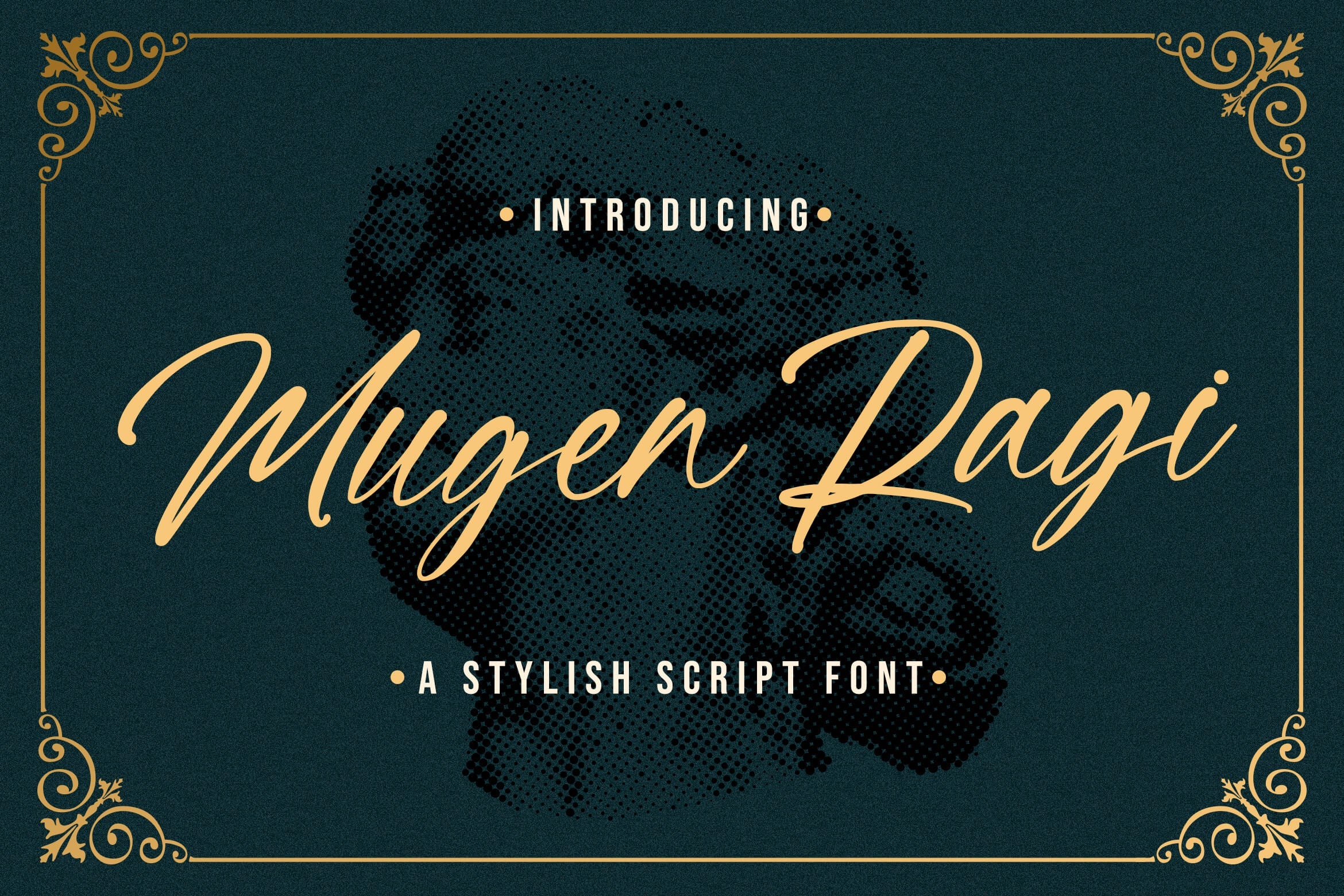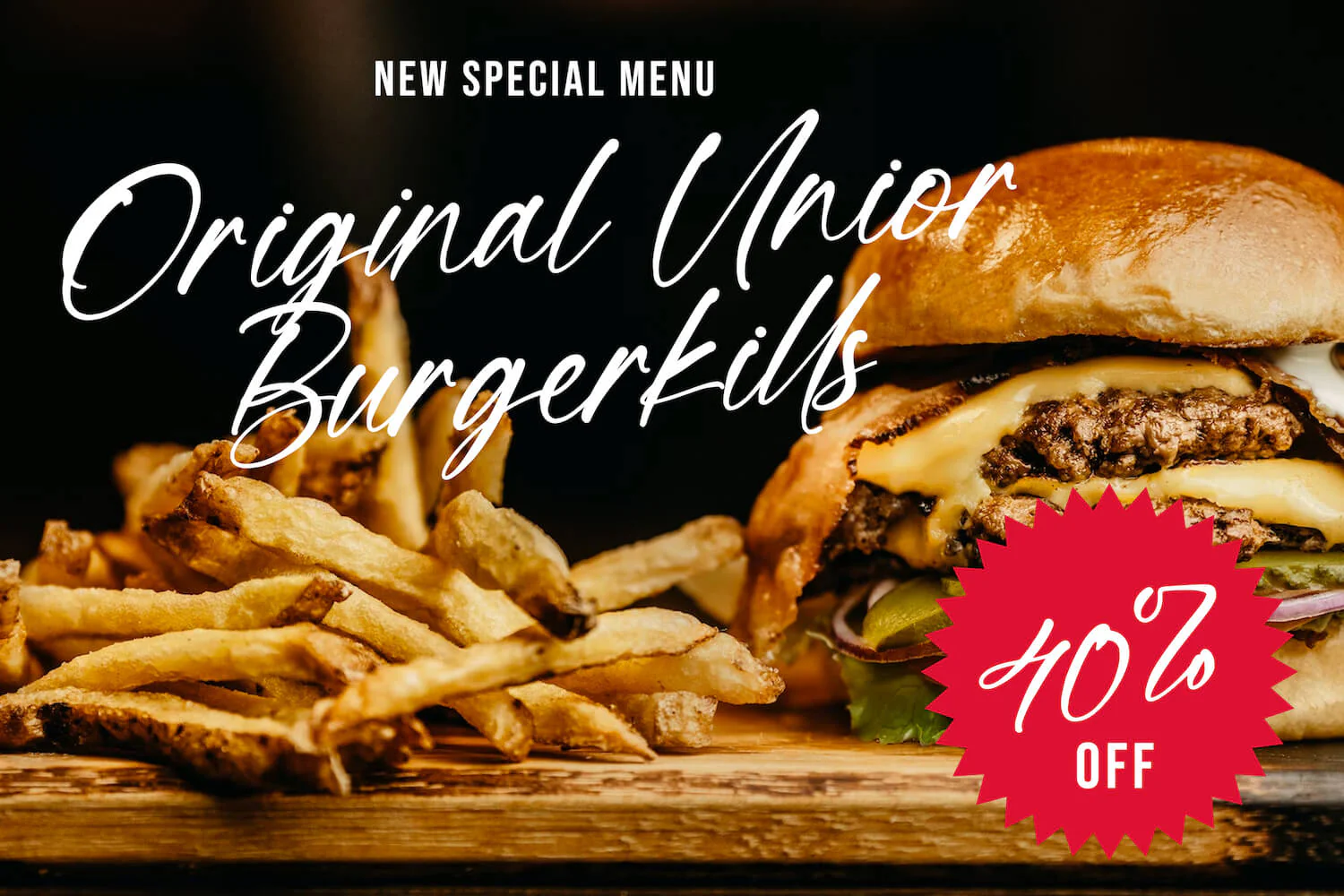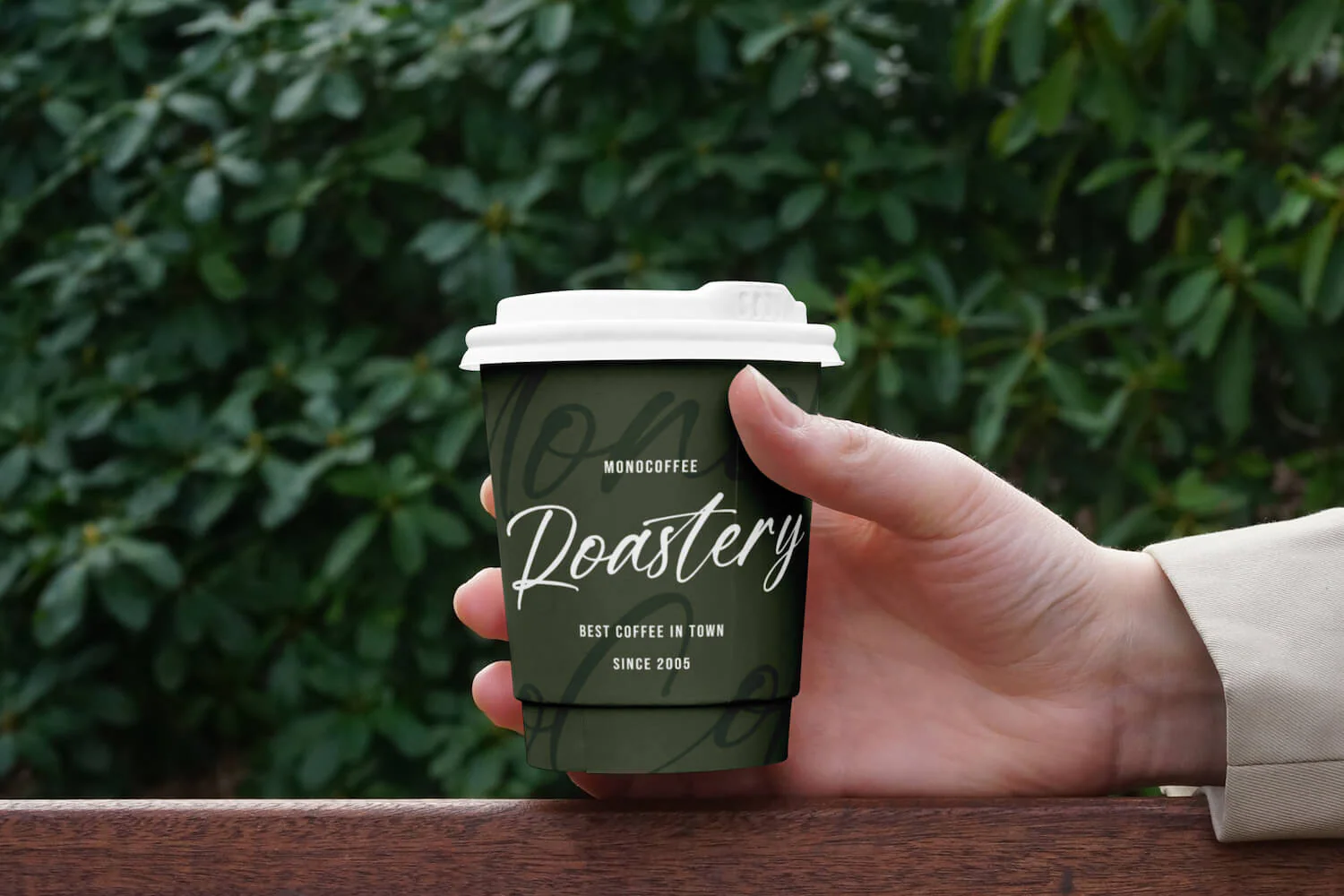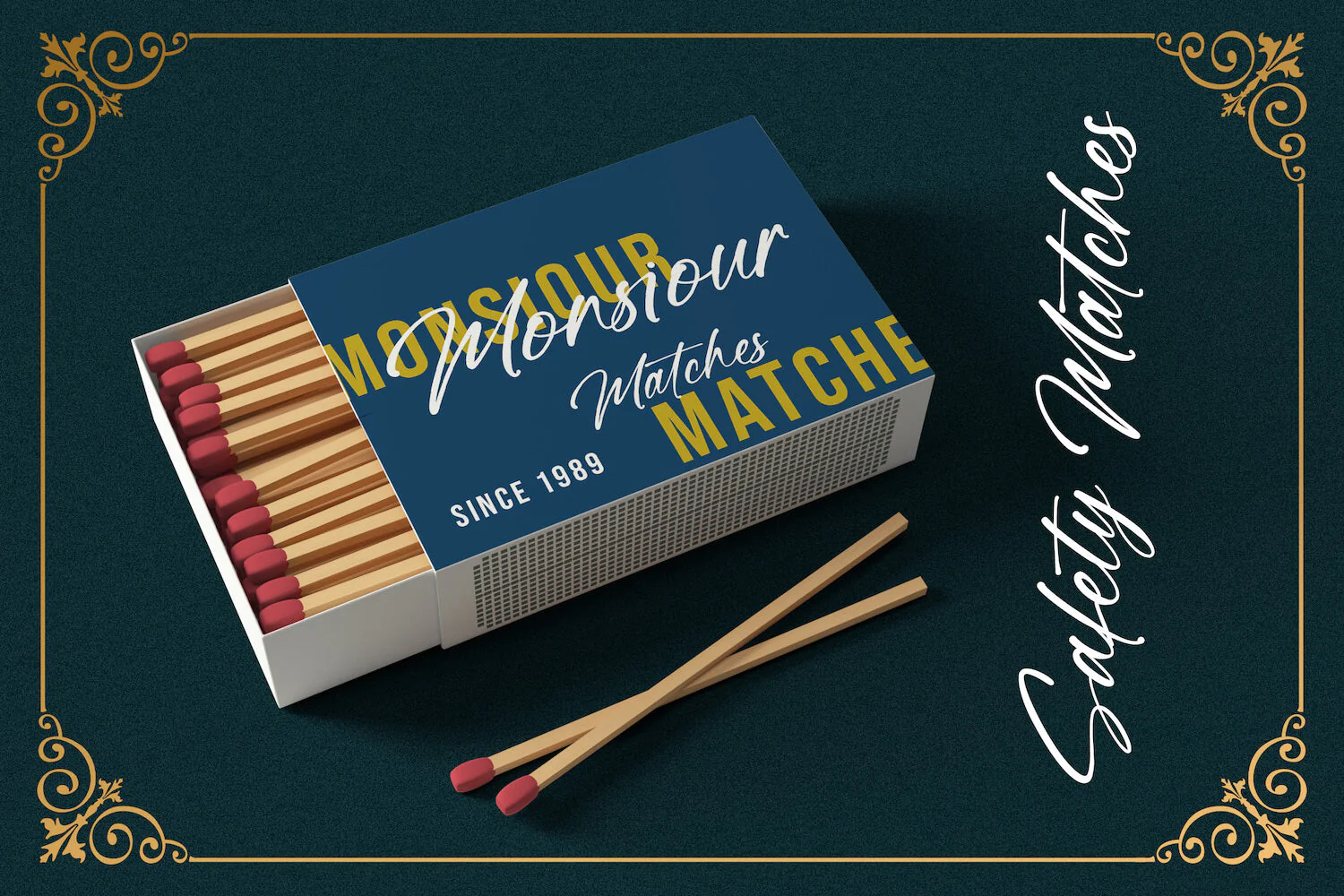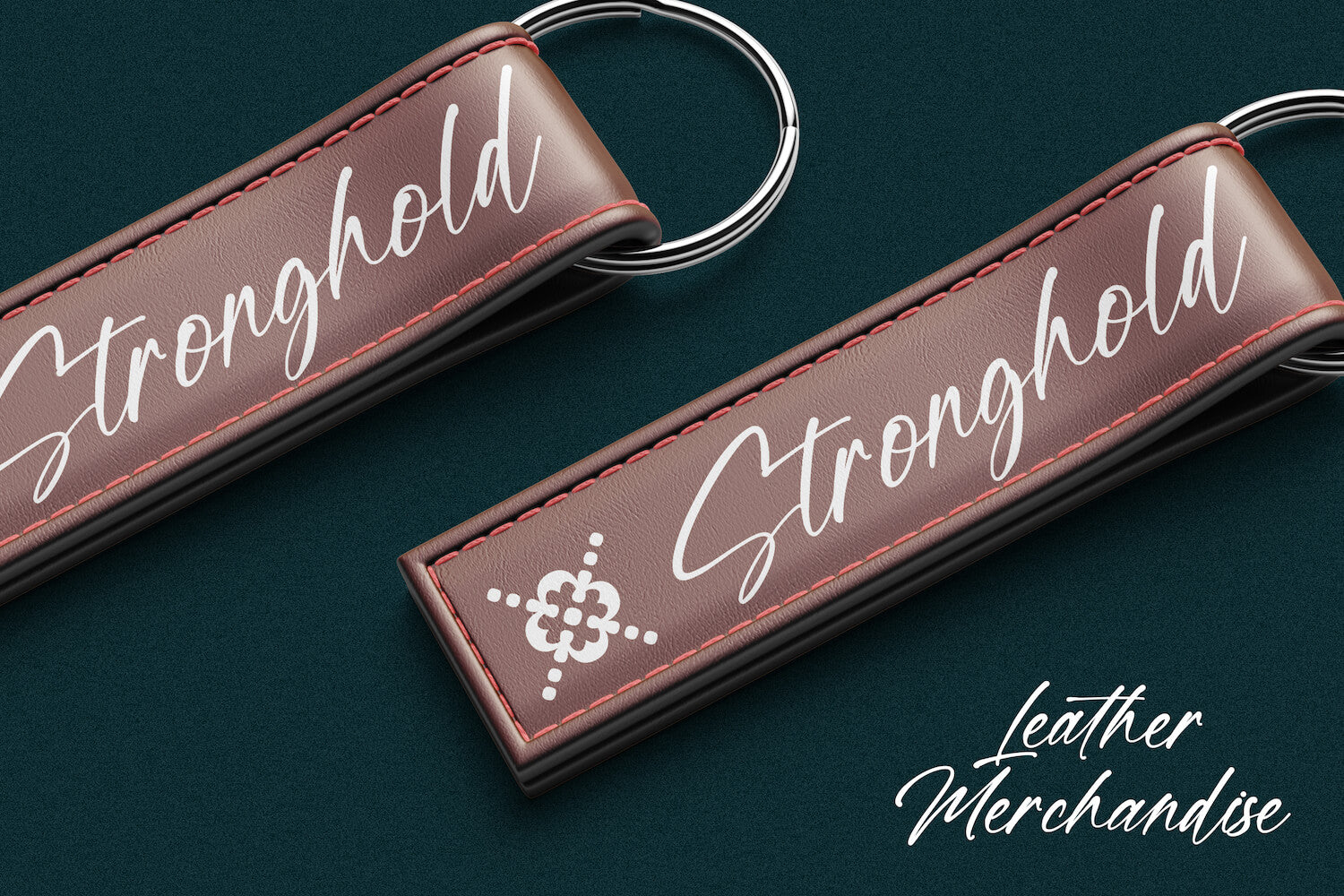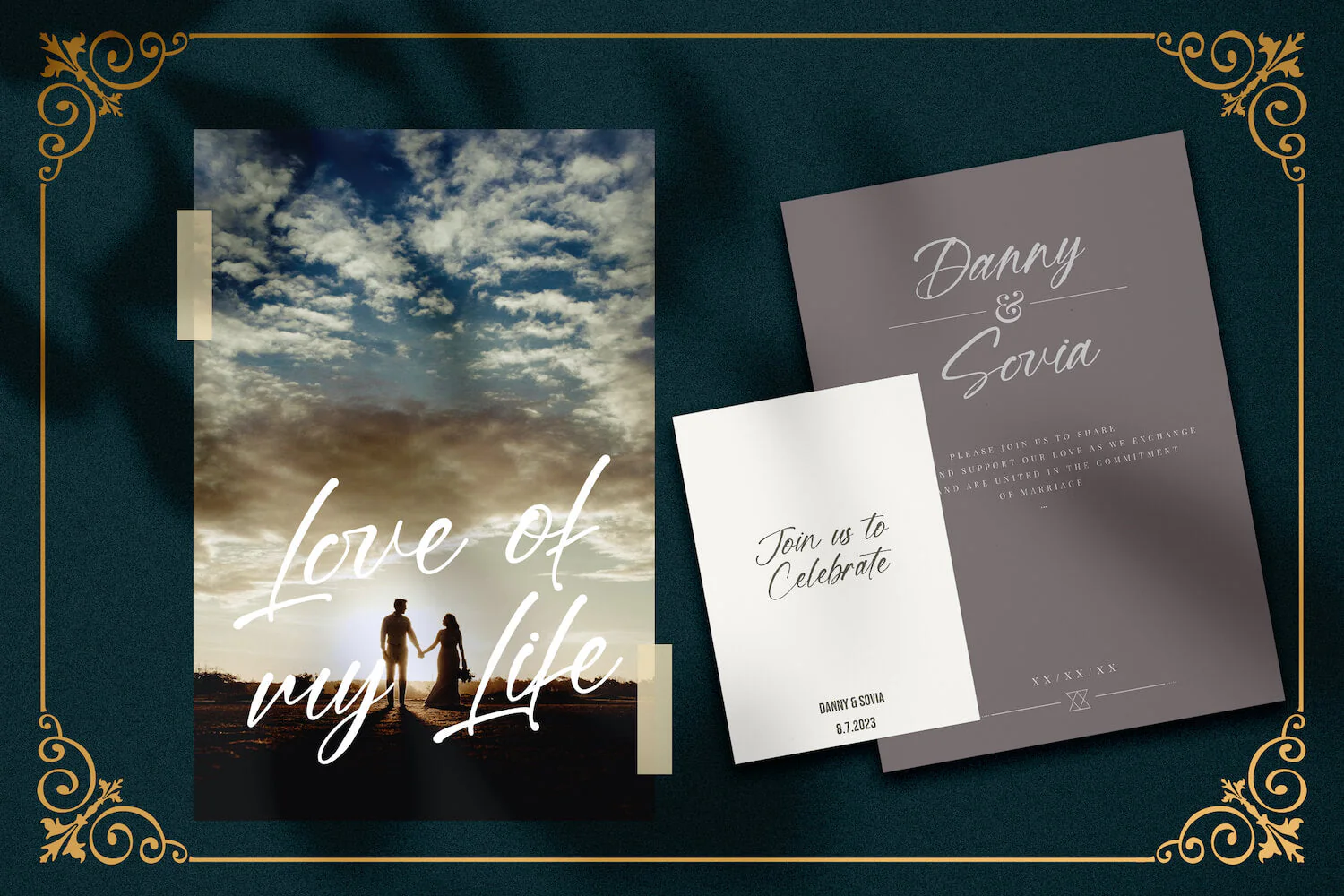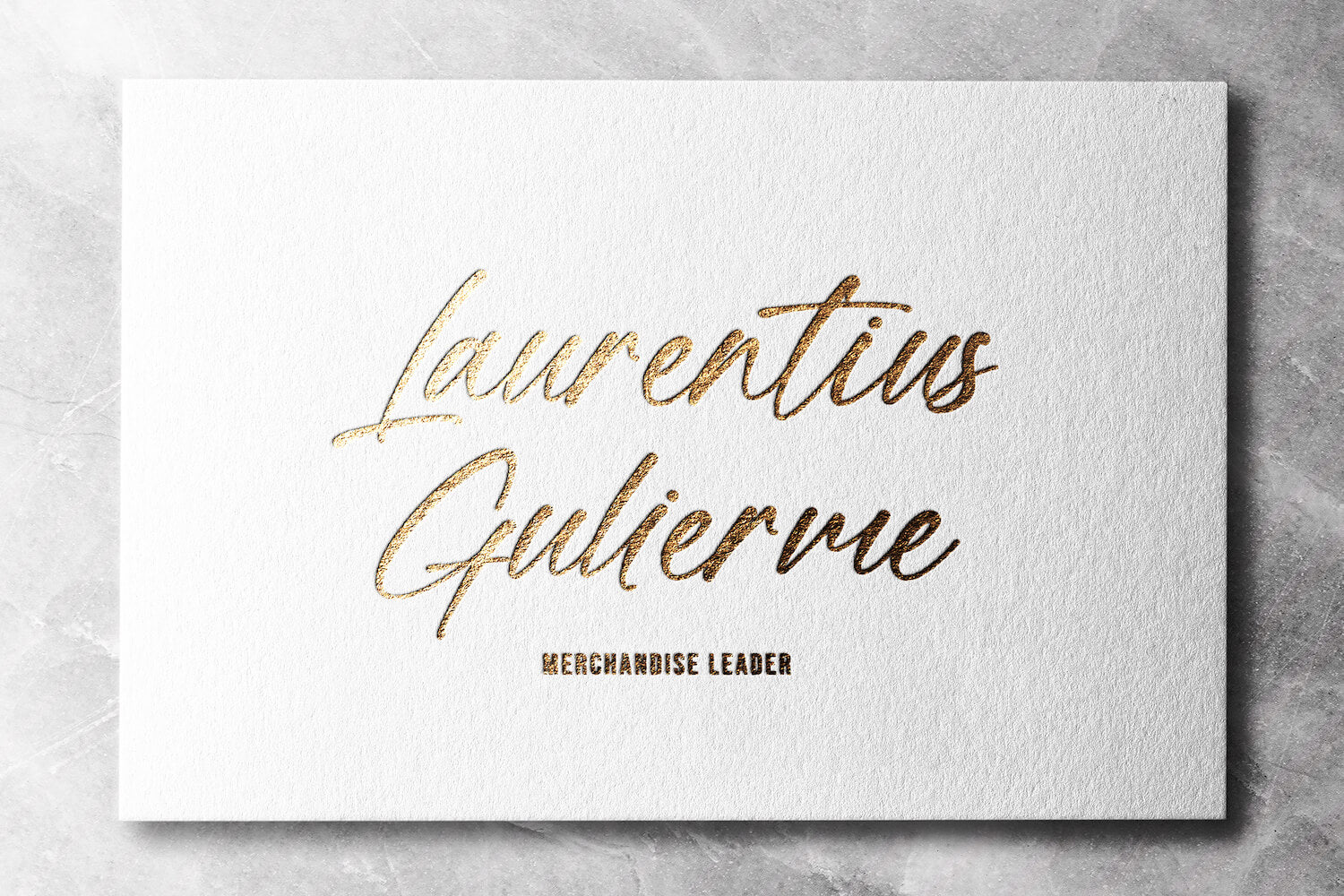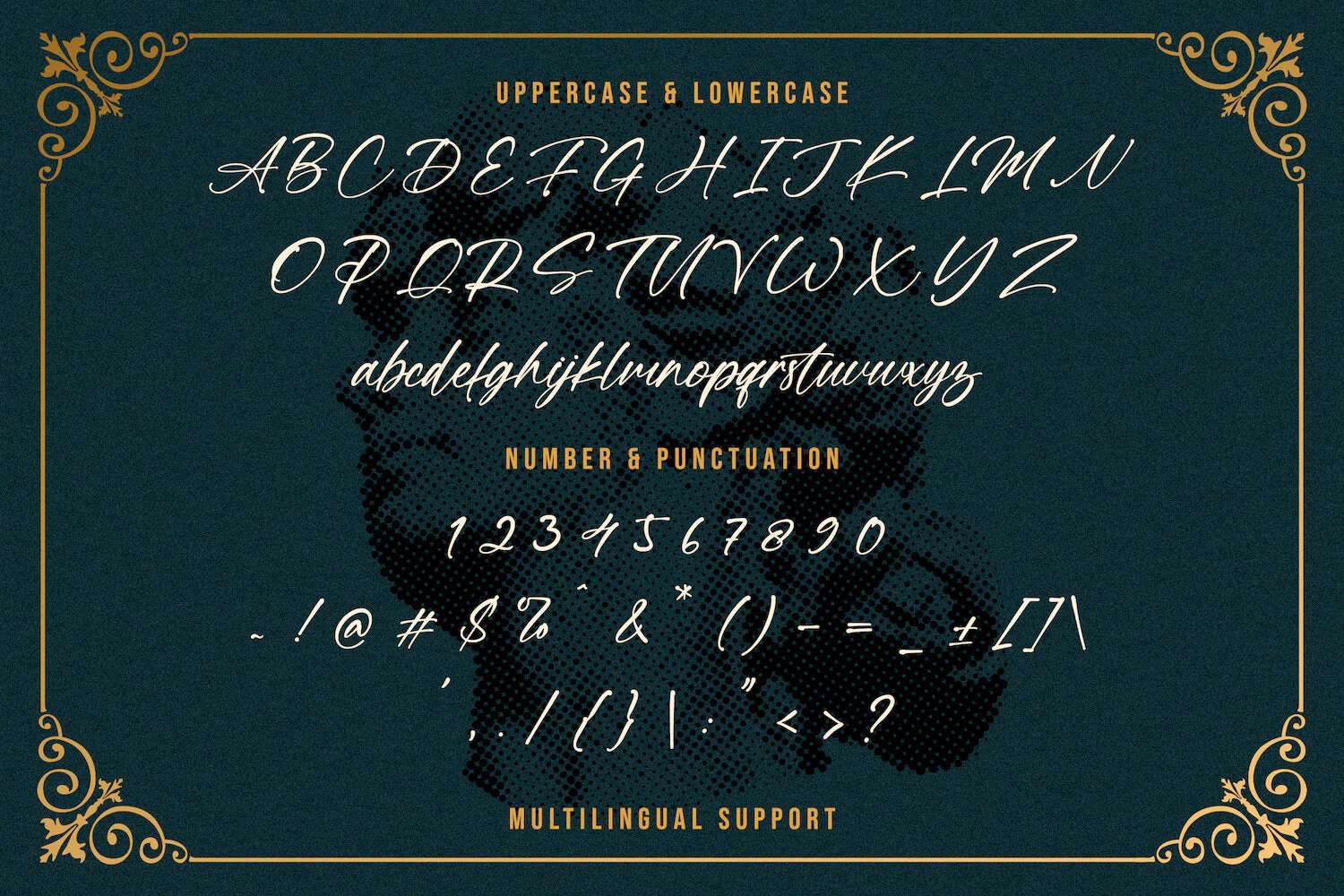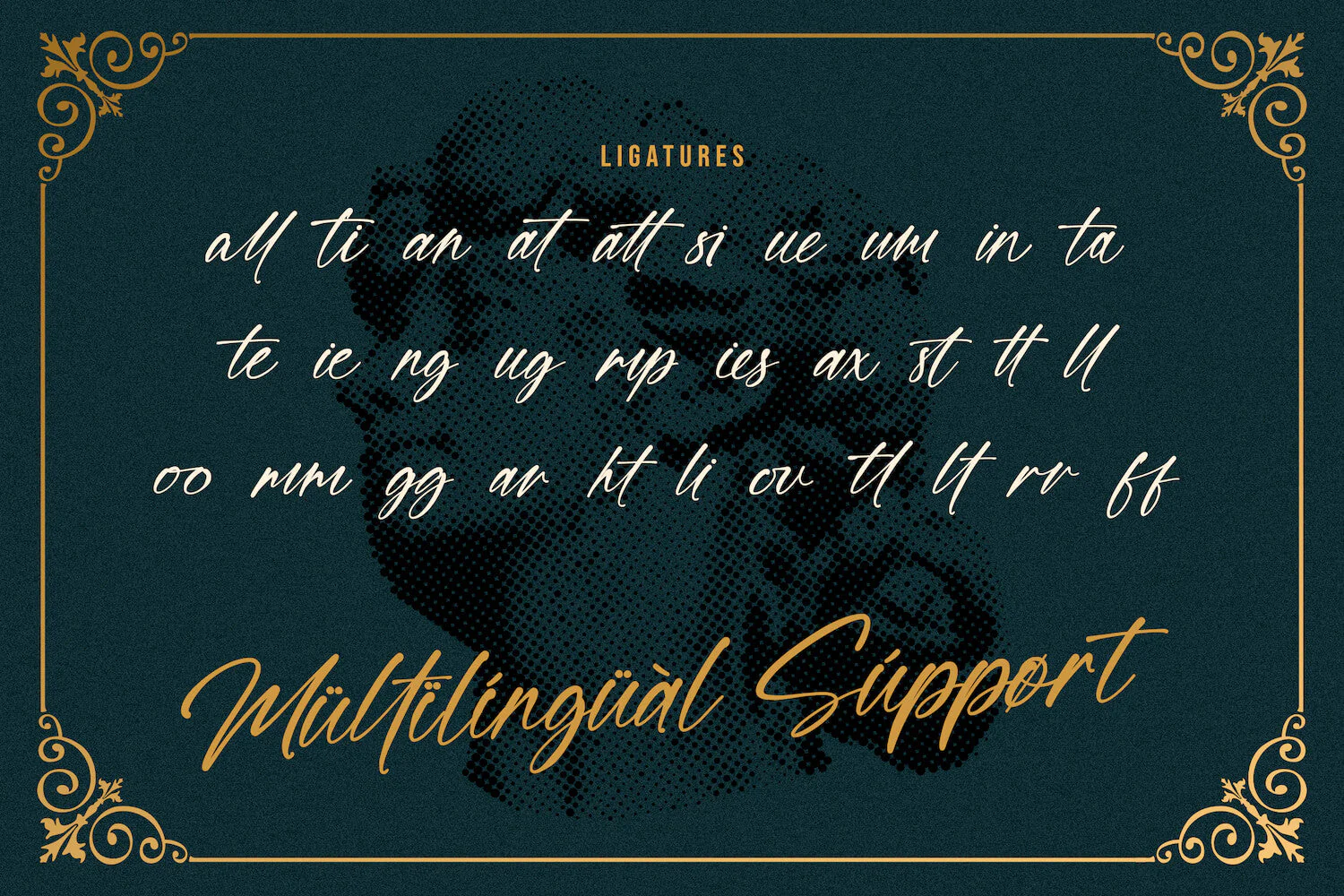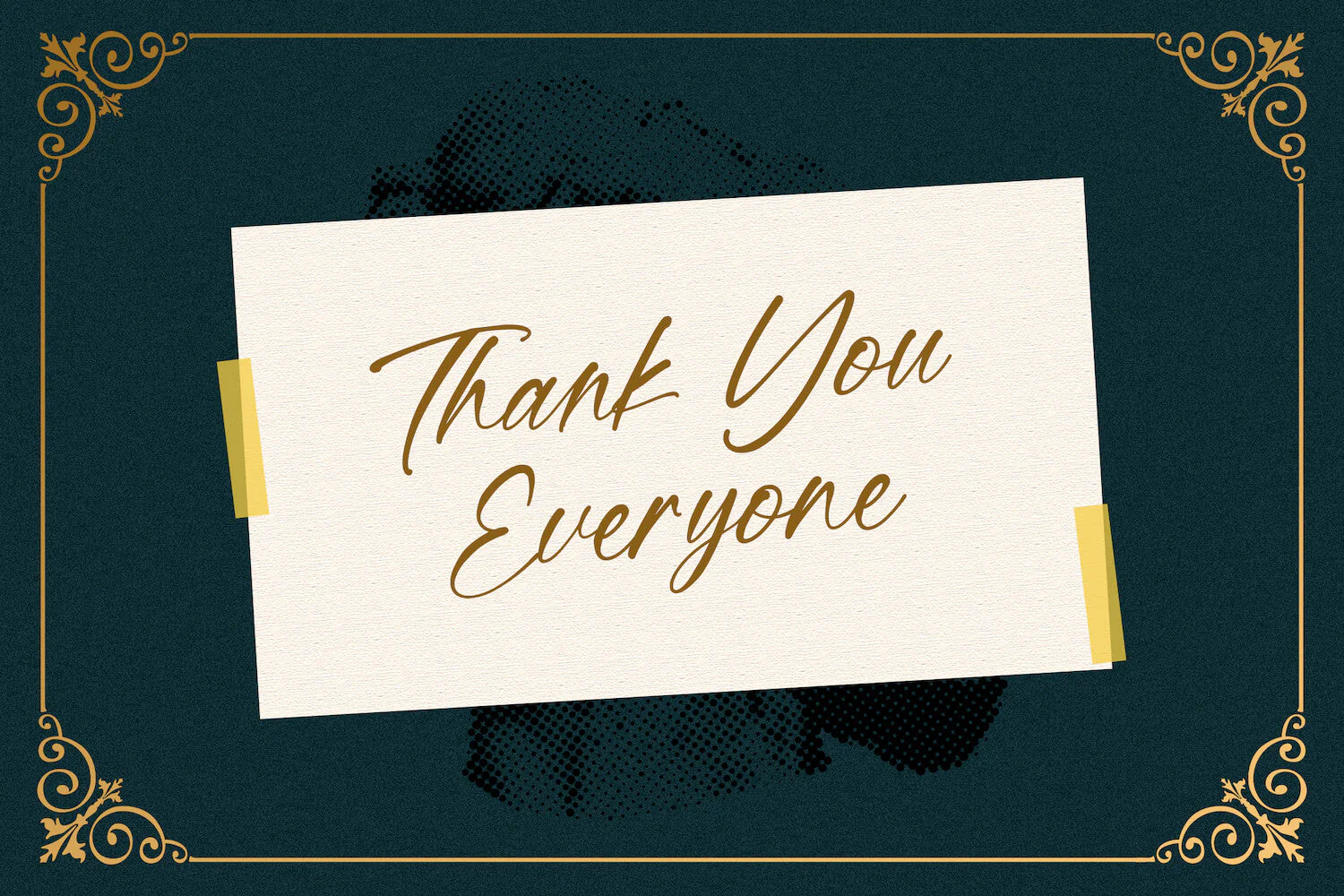
Mugen Ragi - Modern Script Font
Introducing Mugen Ragi - Modern Script Font
Mugen Ragi is a modern script font. It will elevate a wide range of design projects to the highest level, be it branding, headings, wedding designs, invitations, signatures, logos, labels, and much more!
Introducing Mugen Ragi - Modern Script Font
Mugen Ragi is a modern script font. It will elevate a wide range of design projects to the highest level, be it branding, headings, wedding designs, invitations, signatures, logos, labels, and much more!